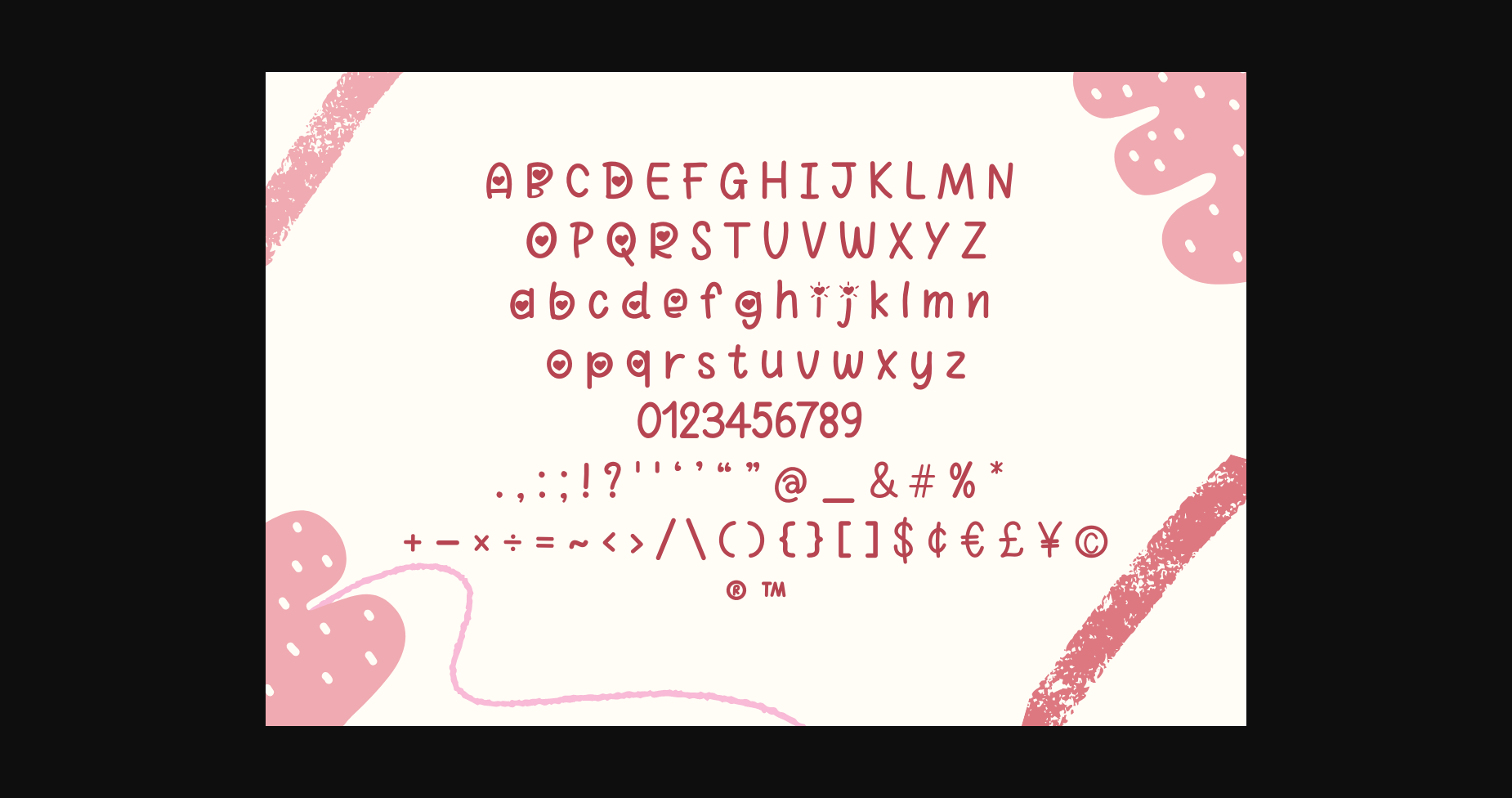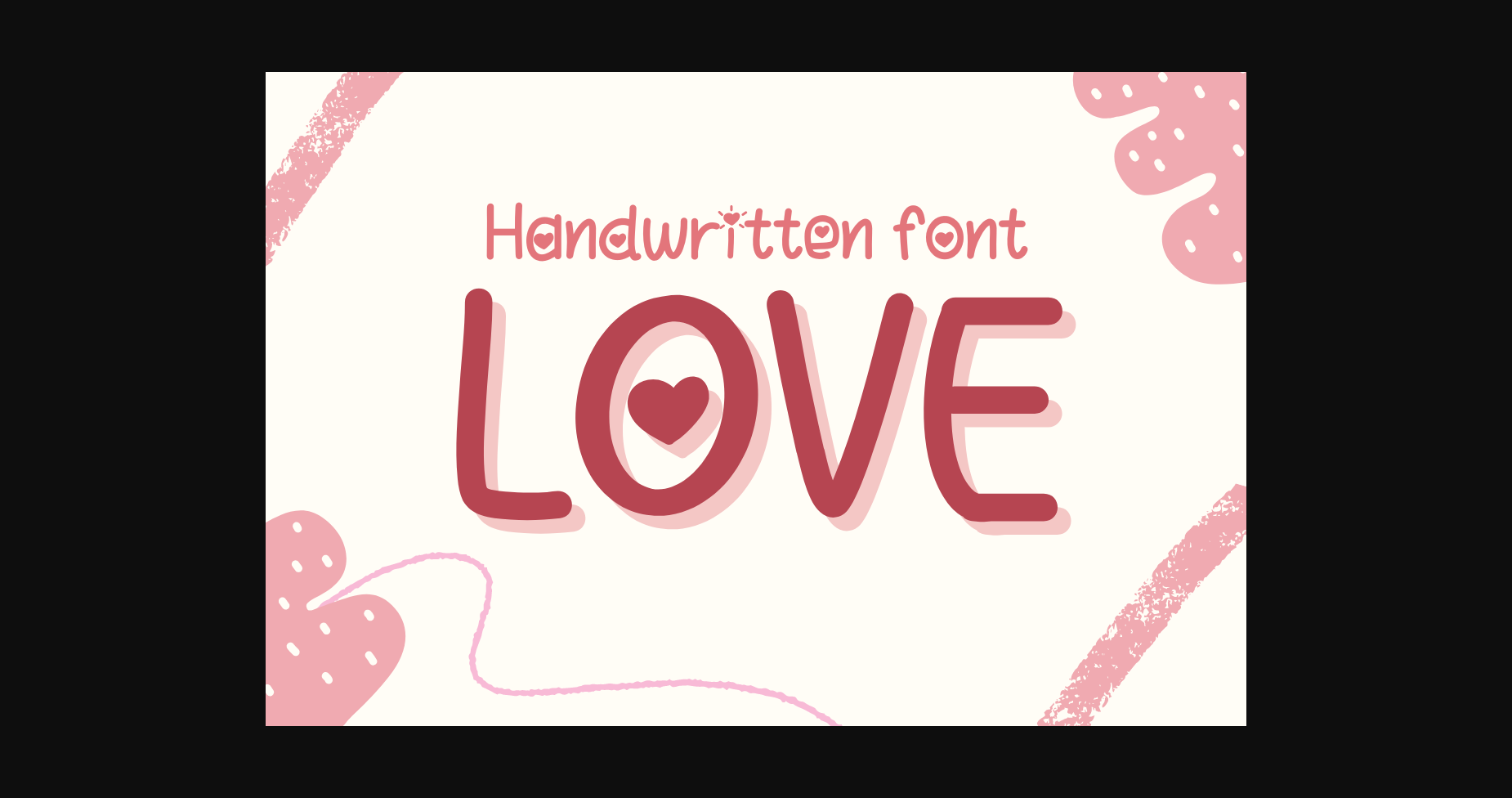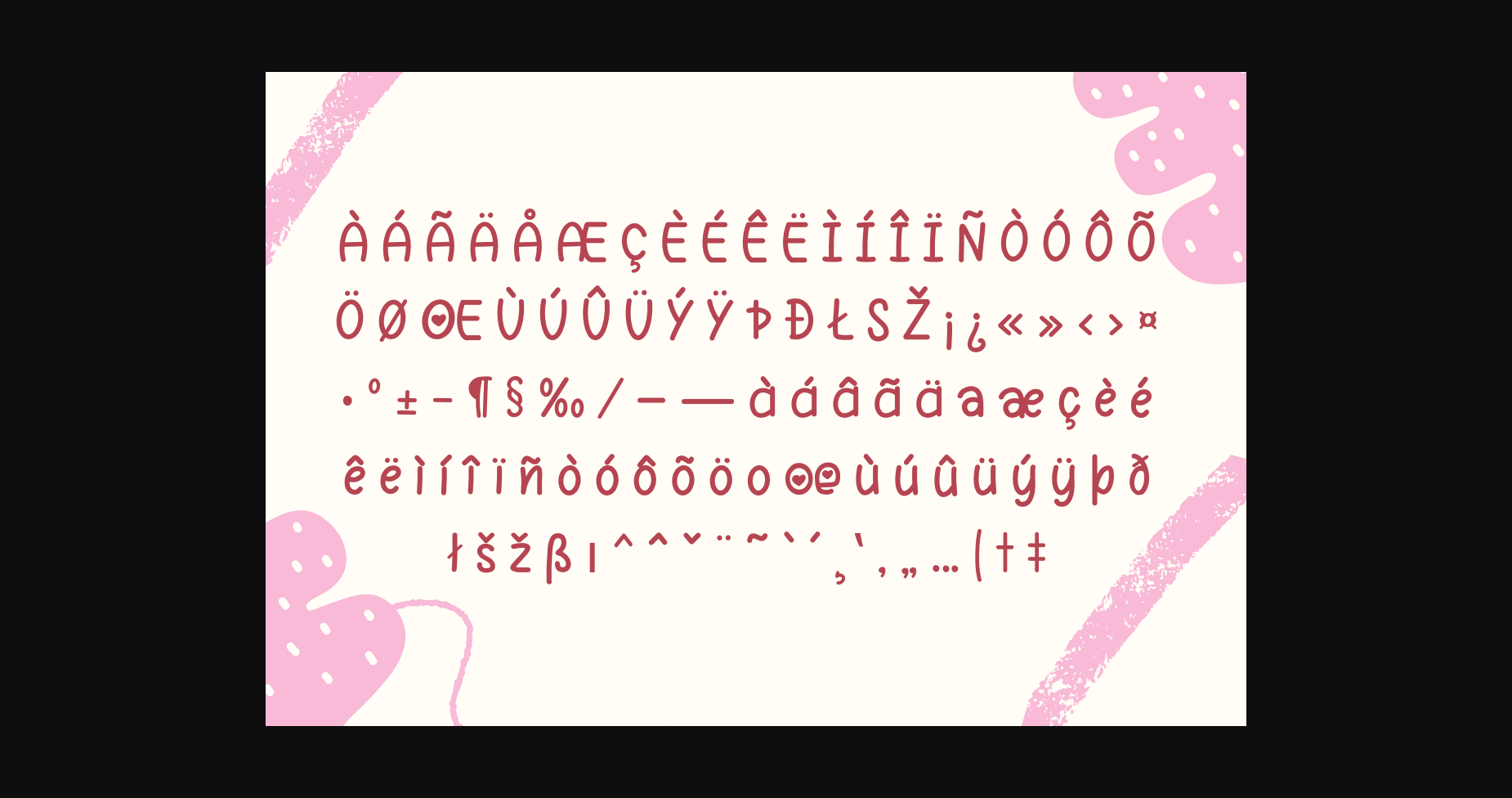
About Love Font
Love is a cute and adorable handwritten sans serif font. You can use it for taking notes, writing a diary, or making greeting cards. However, you can still use it for other designs, such as banners, content, mugs, cards, shirts, stationery, social media posts, and more!